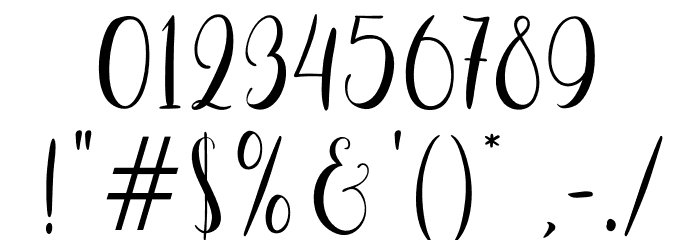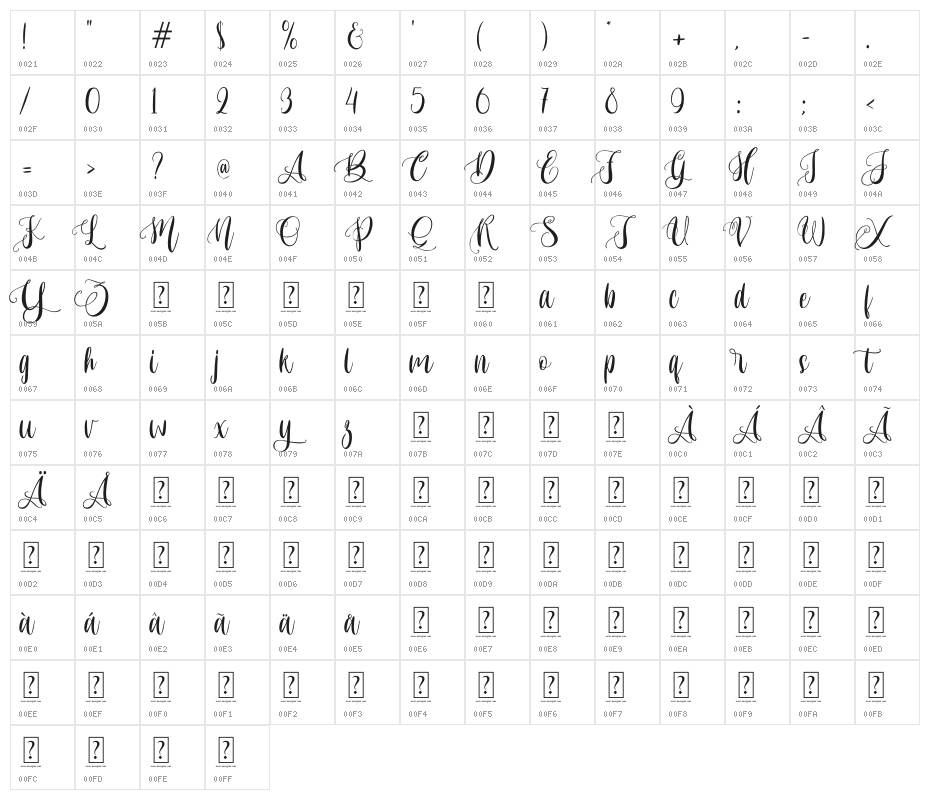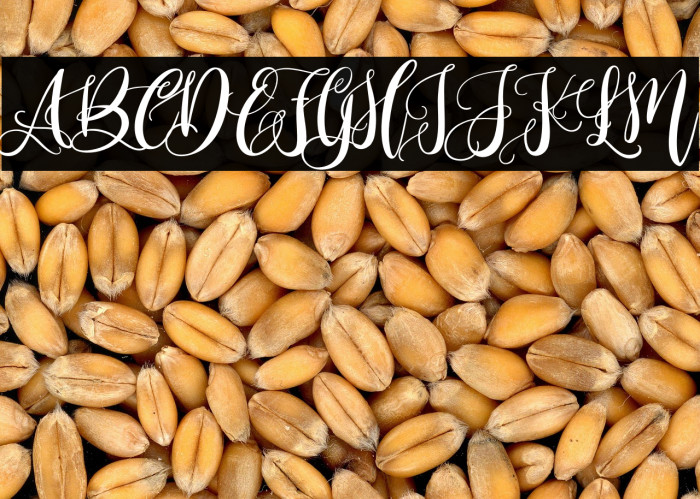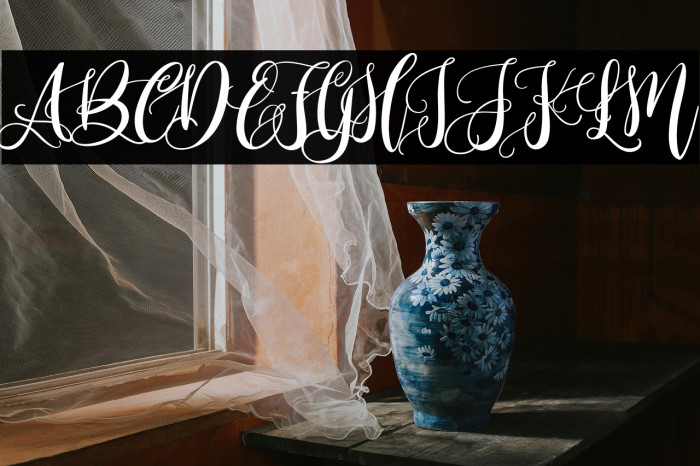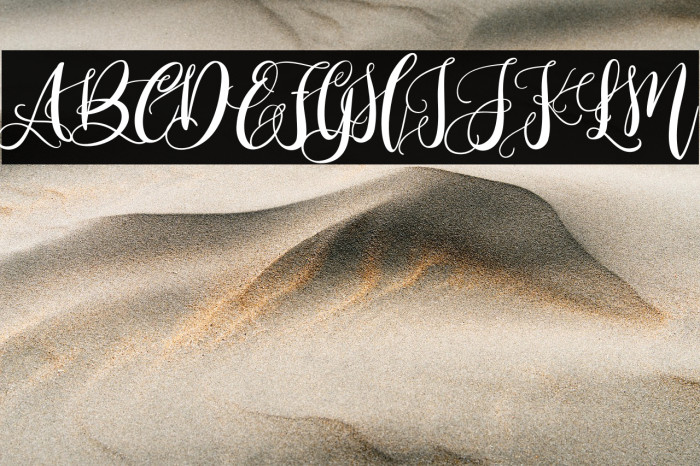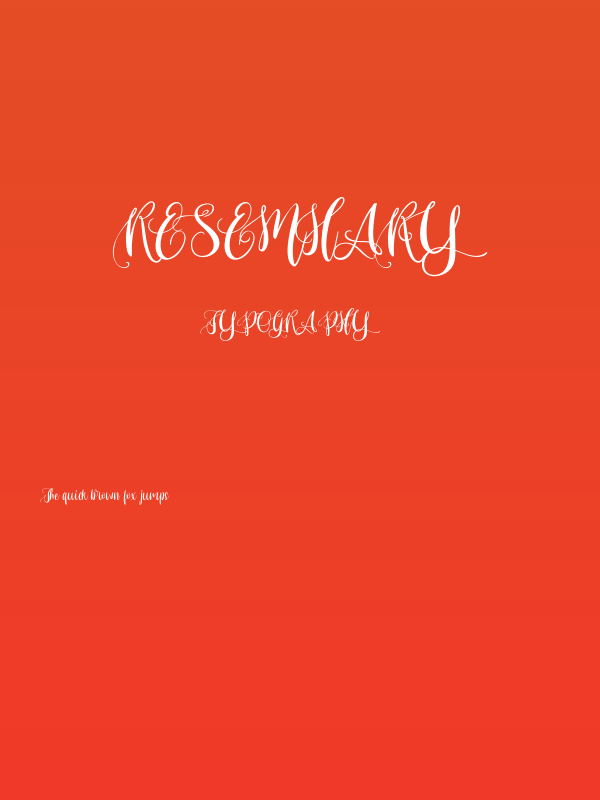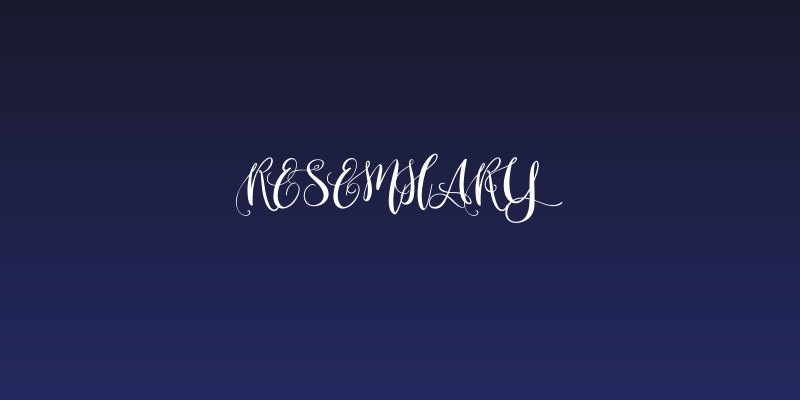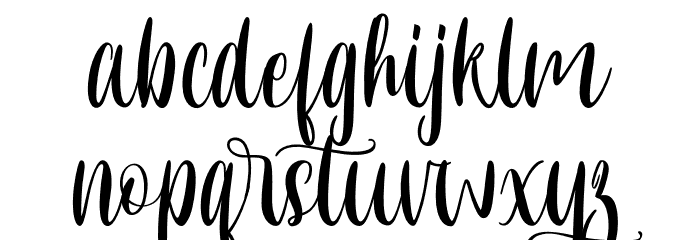
Resemhary Font
Resemhary Description
This font features an elegant and flowing script style, characterized by its intricate swirls and loops. The uppercase letters are particularly ornate, with elaborate flourishes that extend beyond the baseline and cap height, creating a sense of movement and sophistication. The lowercase letters maintain a more restrained elegance, complementing the uppercase with their smooth, connected strokes. The numerals and special characters follow the same decorative style, ensuring consistency across all glyphs. This font is ideal for projects requiring a touch of luxury and refinement.
| Proposed Projects | Ideal for wedding invitations, luxury branding, greeting cards, and elegant packaging designs. |